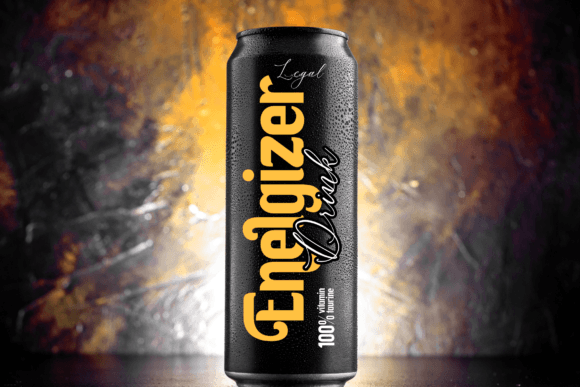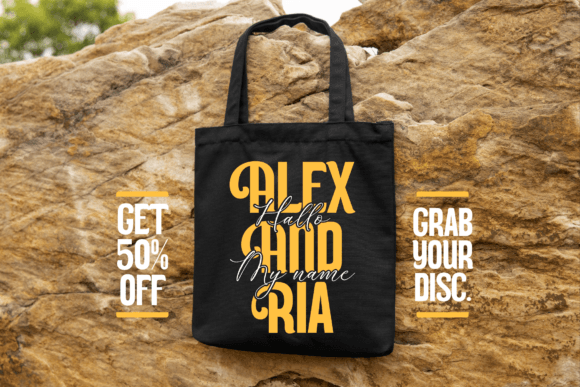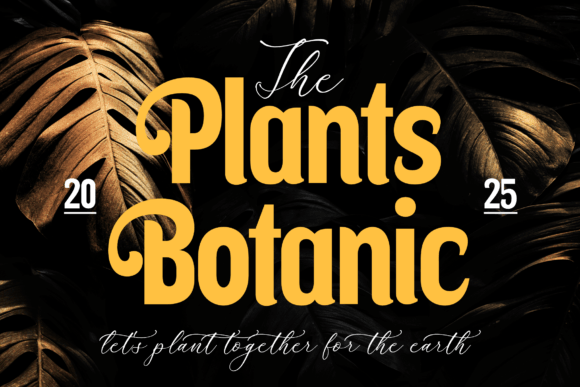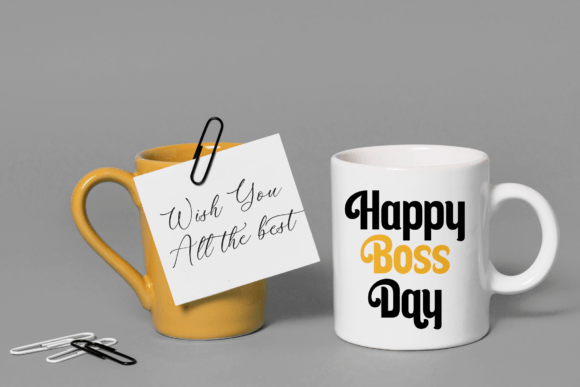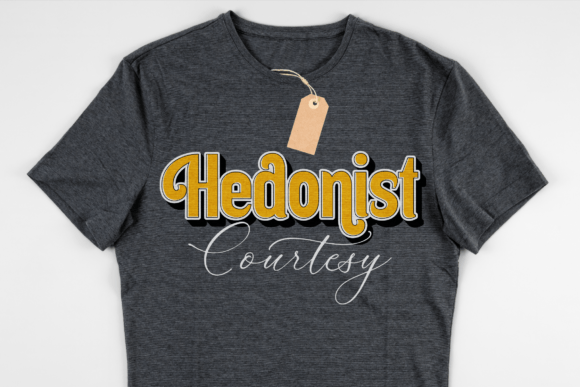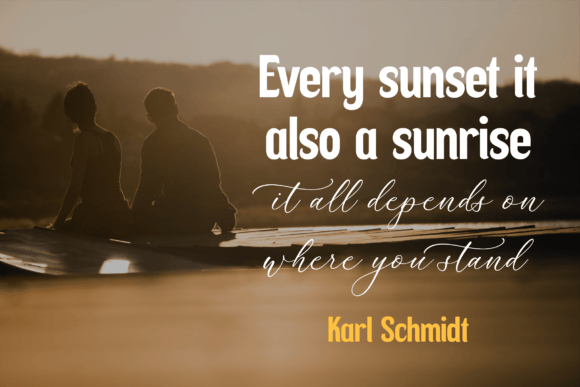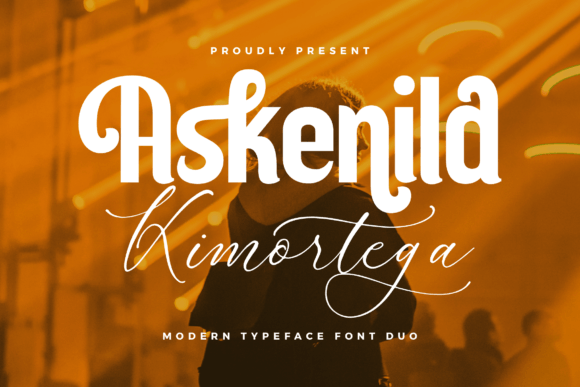
Introducing Askenild Kimortega Font Duo: Elevate Your Designs with Elegance and Luxury
Are you on the hunt for a font that exudes elegance, luxury, and a modern twist? Look no further than the Askenild Kimortega Font Duo, a stunning combination of serif and script typefaces that will take your designs to the next level. This versatile font duo is perfect for a wide range of applications, from logo design and book or movie titles to fashion branding, magazines, and more.
What Sets Askenild Kimortega Apart?
The Askenild Kimortega Font Duo boasts a unique style that seamlessly blends traditional and modern elements. The serif font offers a classic, sophisticated look, while the script font adds a touch of elegance and refinement. This powerful combination allows you to create visually stunning designs that are sure to captivate your audience.
With the Askenild Kimortega Font Duo, the design possibilities are endless. Here are just a few ideas to get you started:
- Elegant Logos: Create a lasting impression with a luxurious logo that showcases your brand’s personality and style.
- Book and Movie Titles: Add a touch of sophistication to your book or movie titles with a design that commands attention.
- Fashion Branding: Elevate your fashion brand with a font that exudes style, elegance, and refinement.
- Magazine and Editorial Design: Take your magazine or editorial design to the next level with a font that offers a unique and captivating look.
- Lettering and Quotes: Create stunning lettering and quotes that inspire and engage your audience.
Why Choose Askenild Kimortega Font Duo?
Here are just a few reasons why the Askenild Kimortega Font Duo stands out from the rest:
- Unique Style: The font duo offers a one-of-a-kind style that will set your designs apart from the crowd.
- Modern Look: The modern twist on traditional serif and script fonts makes it perfect for contemporary designs.
- High Versatility: The font duo is suitable for a wide range of applications, from luxury logos to fashion branding.
In conclusion, the Askenild Kimortega Font Duo is a game-changer for designers and crafters looking to elevate their designs with elegance, luxury, and a modern twist. With its unique style, high versatility, and ease of use, this font duo is sure to become a staple in your design arsenal. So why wait? Get your hands on the Askenild Kimortega Font Duo today and take your designs to new heights!
Proudly present Askenild Kimortega Font Duo. A serif and script typeface that has its own unique style & modern look. This typeface is perfect for an elegant & luxury logo, book or movie title design, fashion brand, magazine, clothes, lettering, quotes, and so much more. This font is PUA encoded which means you can access all of the amazing glyphs and ligatures with ease!